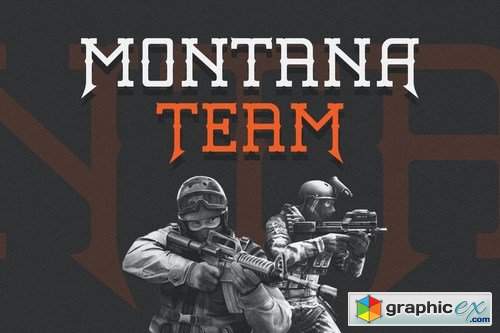
Montenegro - Decorative Slab Serif
Montenegro - Decorative Slab Serif - Military Game Font
Montenegro font is perfect for your up coming projects. Such as logo branding, editorial design, stationery design, sport design, blog design, modern advertising design, card invitation, art quote, home decor, book/cover title, special events and any more.